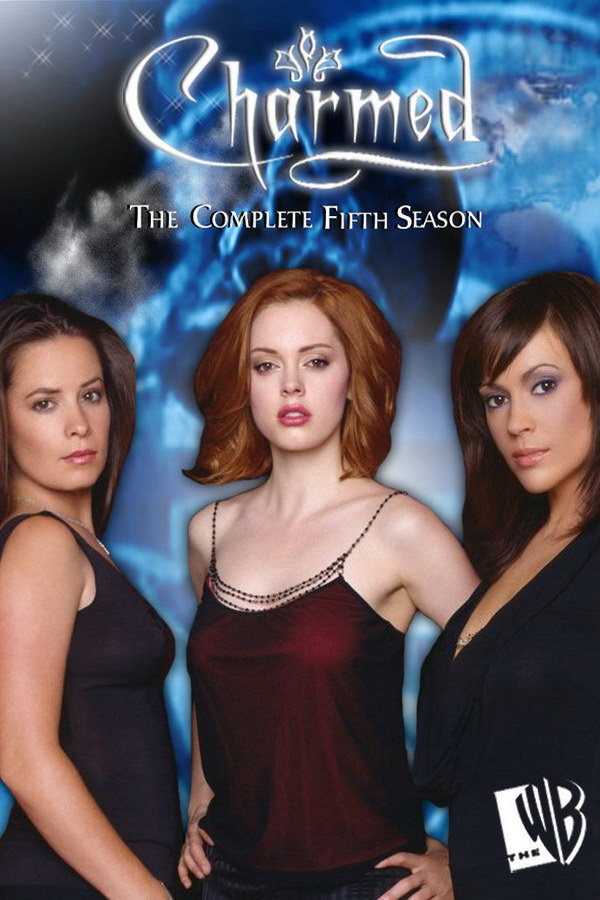
Charmed Font
FantasyCharmed is a fantasy television series that follows three sisters who discover they are powerful witches and use their abilities to protect innocents from evil forces. The show ran from 1998 to 2006.
The logo of the TV series "Charmed" is based on a free font called A Charming Font by GemFonts. It comes in six styles with uppercase, lowercase, and diacritical letters.